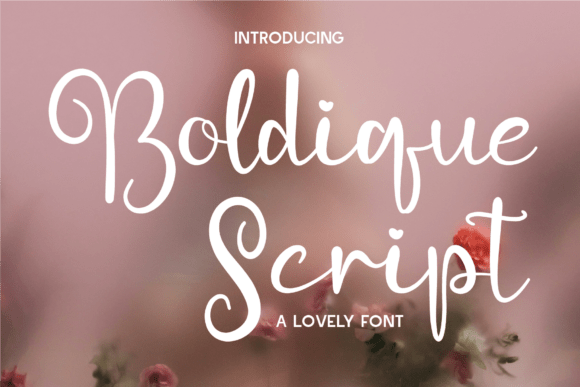
Boldique Script Font: Elevate Your Designs with Elegance and Playfulness
In the world of typography, a font can make all the difference in the success of a design project. A well-crafted font can add personality, convey emotions, and create a lasting impression on the audience. One such font that has been making waves in the design community is the Boldique Script Font. In this article, we’ll dive into the world of Boldique Script, exploring its features, benefits, and uses, and why it’s becoming a favorite among designers.
What is Boldique Script Font?
Boldique Script is a lovely and playful script font that exudes elegance and warmth. With its fluid, handcrafted strokes and delightful heart-shaped details, this font brings a touch of romance and personality to any project. Designed to be versatile and visually captivating, Boldique Script seamlessly blends a modern calligraphic style with a casual yet refined aesthetic.
Key Features of Boldique Script Font
- Elegant & Playful: A perfect blend of sophistication and charm with subtle decorative accents.
- Natural Flow: Handwritten-style strokes create an organic and inviting feel.
- Versatile Usage: Ideal for logos, invitations, quotes, greeting cards, and boutique branding.
- Easy to Use: Designed for seamless legibility while maintaining a stylish, artistic look.
Benefits of Using Boldique Script Font
Boldique Script offers a range of benefits that make it an attractive choice for designers. Its smooth curves, varying stroke thickness, and well-balanced letterforms make it perfect for a variety of design applications, including:
- Branding: Create a lasting impression with a unique and memorable brand identity.
- Wedding Stationery: Add a touch of romance and elegance to wedding invitations, cards, and decorations.
- Social Media Graphics: Elevate your social media presence with eye-catching graphics and quotes.
- Product Packaging: Stand out on store shelves with beautifully designed packaging that reflects your brand’s personality.
Design Tips for Using Boldique Script Font
To get the most out of Boldique Script, here are some design tips to keep in mind:
- Pair with contrasting fonts: Combine Boldique Script with a clean sans-serif font to create visual interest and hierarchy.
- Use for headlines and titles: Take advantage of the font’s elegant and playful style to create attention-grabbing headlines and titles.
- Experiment with colors: Try out different color combinations to find the perfect match for your brand or design.
Why Choose Boldique Script Font?
With so many fonts available, why choose Boldique Script? Here are a few reasons why this font stands out:
- Unique and memorable: Boldique Script’s distinctive style ensures that your designs will stand out from the crowd.
- Elegant and playful: The font’s perfect blend of sophistication and charm makes it suitable for a wide range of design applications.
- Easy to use: Boldique Script is designed for seamless legibility, making it easy to use for designers of all levels.
In conclusion, Boldique Script Font is a versatile and visually captivating font that offers a range of benefits for designers. Its elegant and playful style, combined with its ease of use, make it an attractive choice for a variety of design applications. Whether you’re looking to create a lasting impression with a brand identity, add a touch of romance to wedding stationery, or elevate your social media presence, Boldique Script is the perfect choice. Get your copy today and start creating stunning designs that leave a lasting impression!